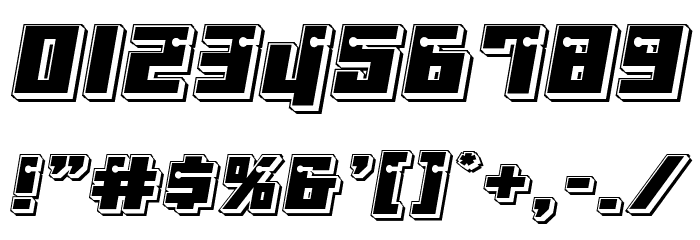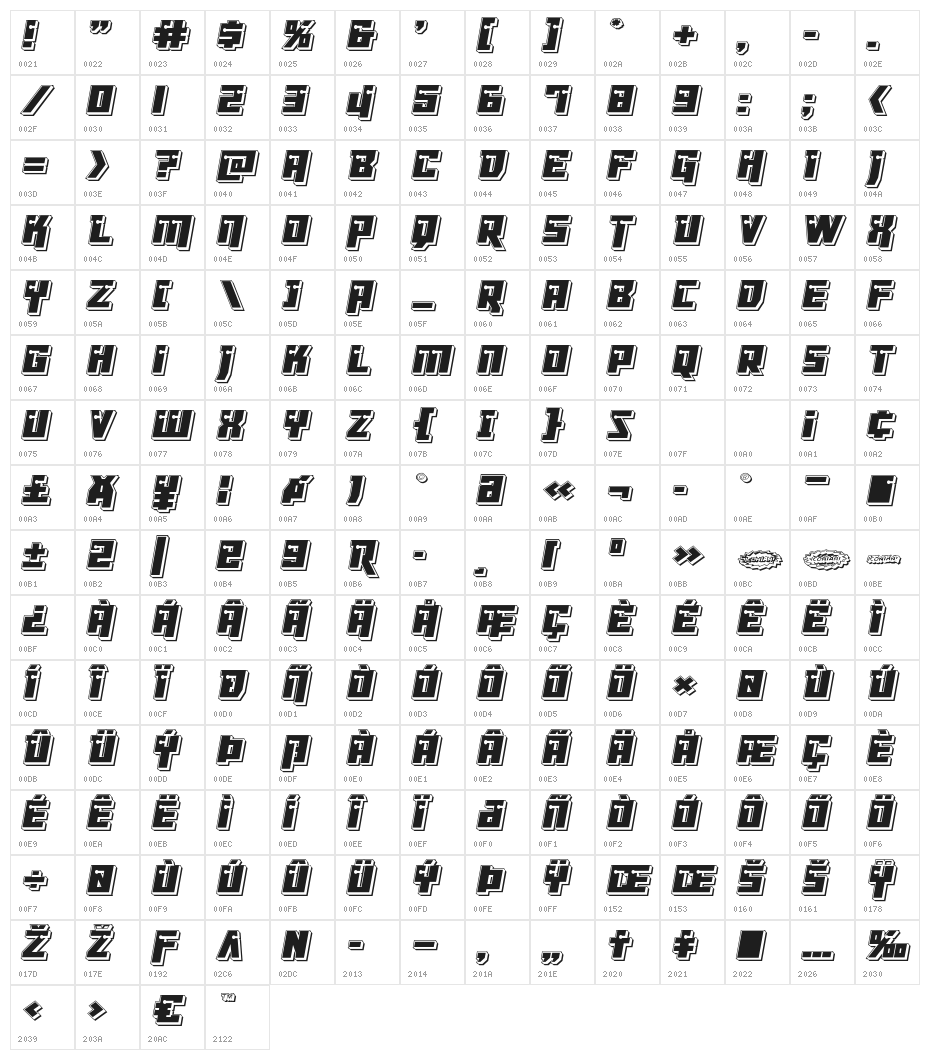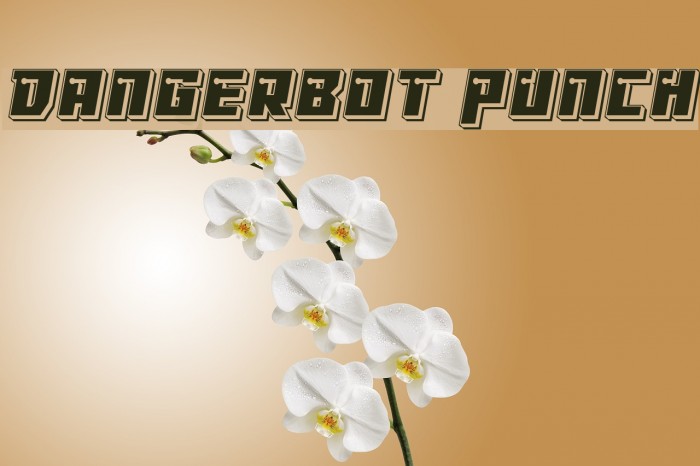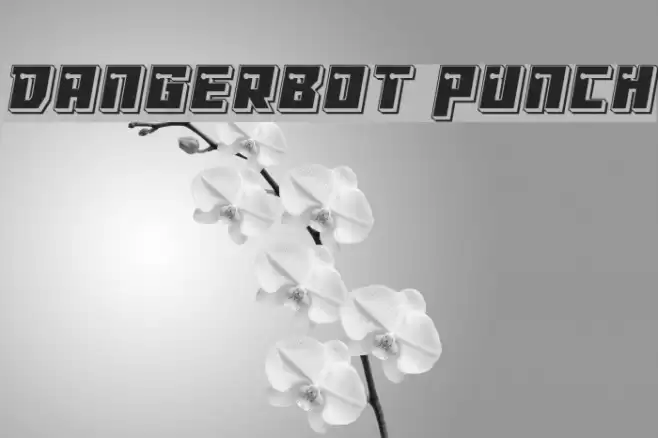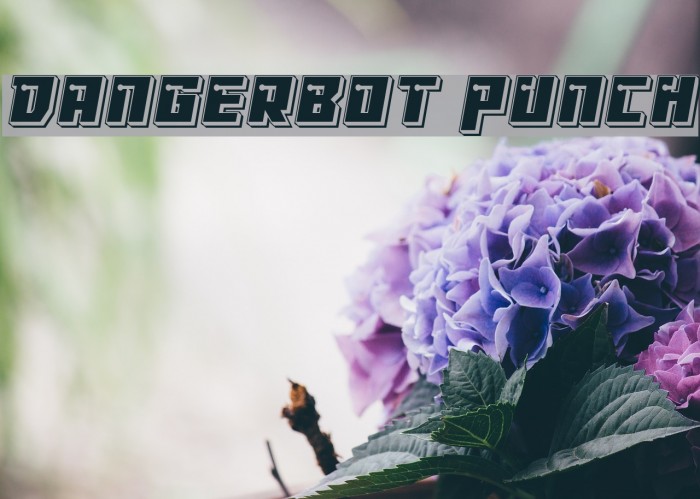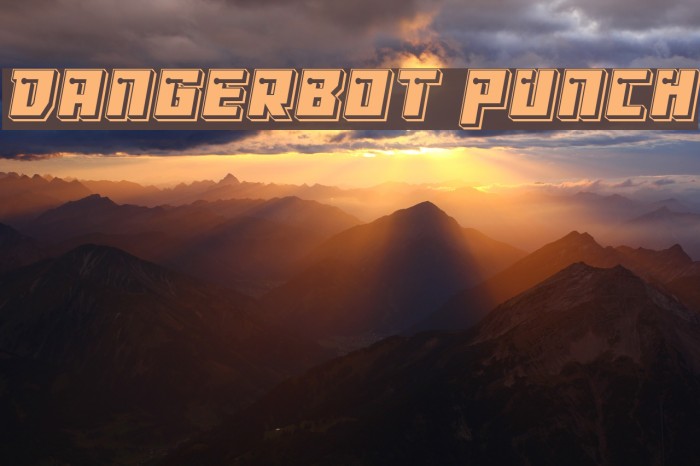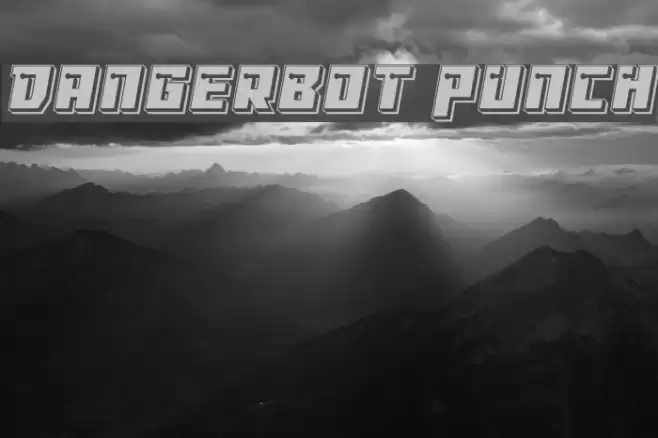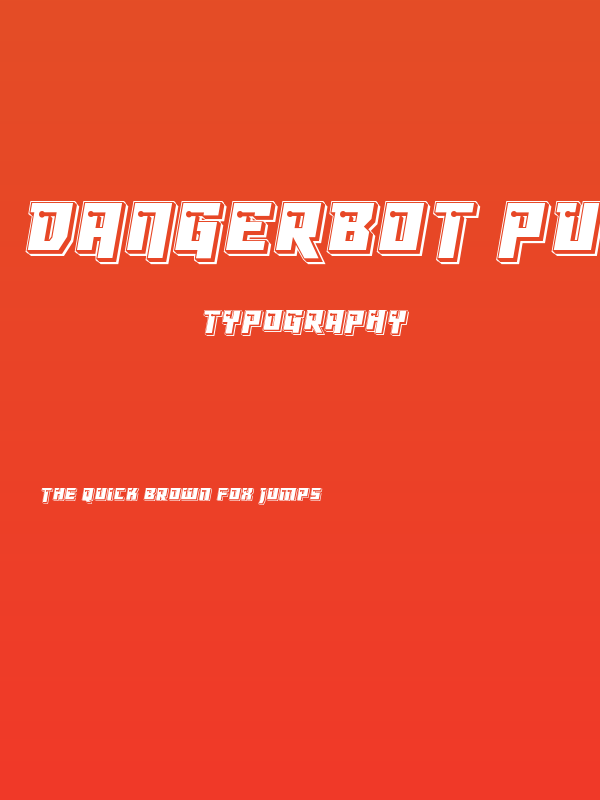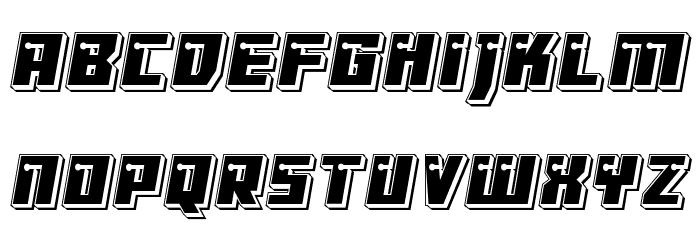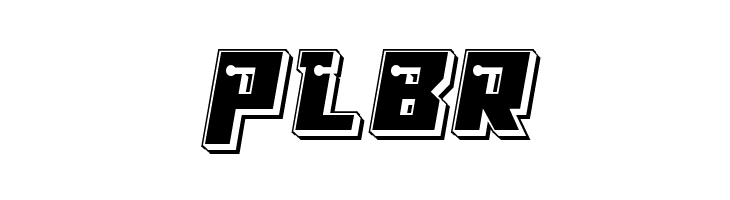
Dangerbot Punch Font
Dangerbot Punch Description
This font features a bold, three-dimensional design with a strong, futuristic aesthetic. The characters are blocky and angular, with a distinct shadow effect that gives them depth and a sense of motion. The uppercase letters are particularly striking, with sharp edges and a dynamic presence. The numbers and special characters maintain the same bold style, ensuring consistency across all elements. This font is ideal for projects that require a modern, tech-inspired look, such as video game titles, posters, or branding for technology companies.
Proposed ProjectsIdeal for video game titles, tech branding, posters, and futuristic-themed designs.